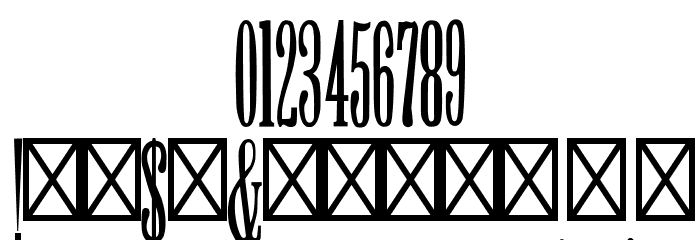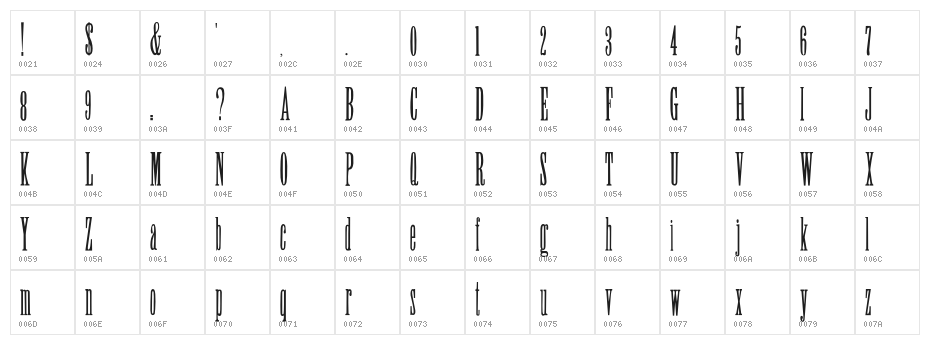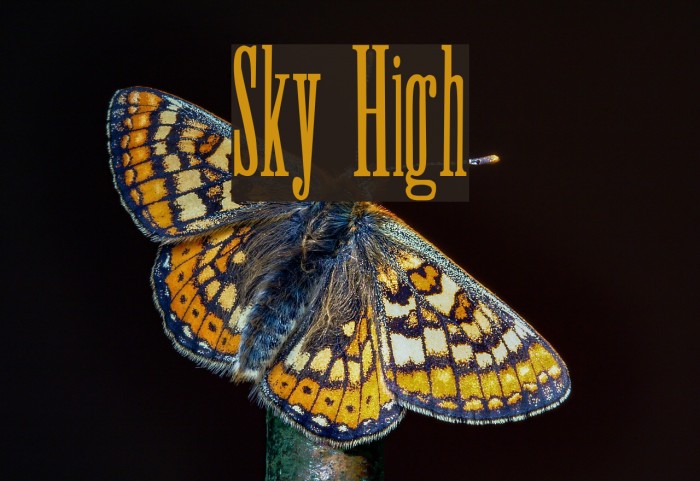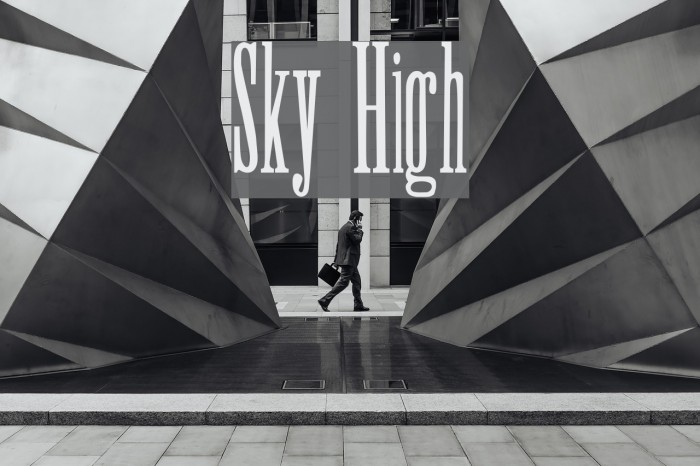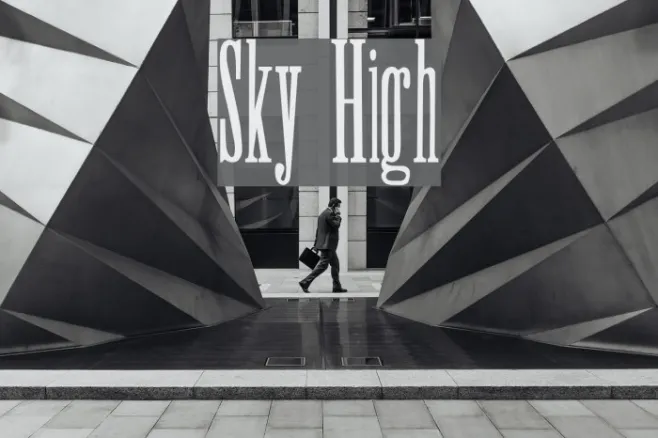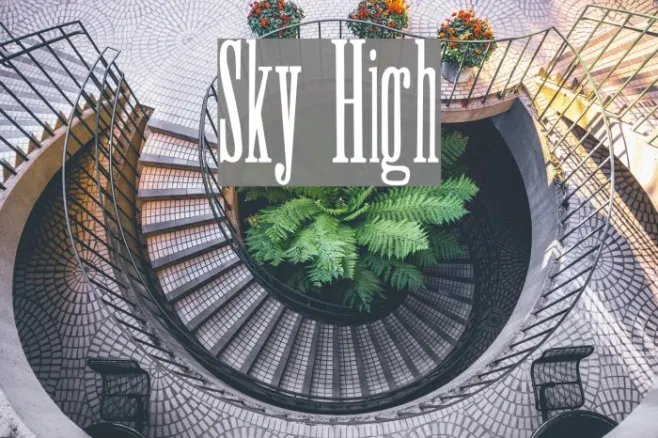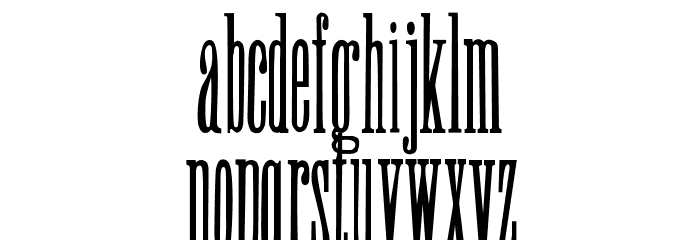
Sky High Font
Sky High Description
This font features an elongated and narrow design, characterized by its tall, slender letterforms. The uppercase letters are particularly striking, with a vertical emphasis that gives them a towering appearance. The lowercase letters maintain this verticality, creating a cohesive look across the alphabet. The numerals are similarly styled, ensuring consistency throughout. The font's high contrast between thick and thin strokes adds a dramatic flair, making it suitable for eye-catching designs. Its unique style is both modern and elegant, making it ideal for projects that require a distinctive and sophisticated touch.